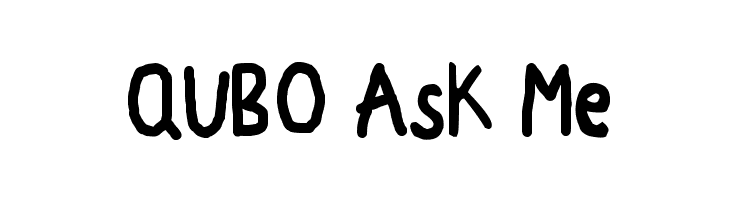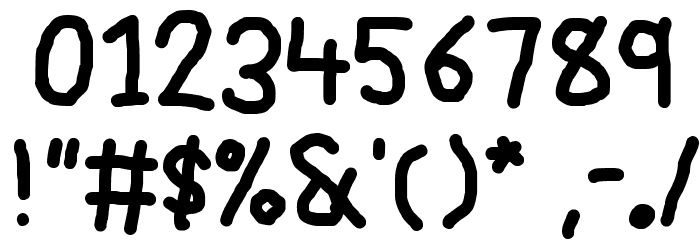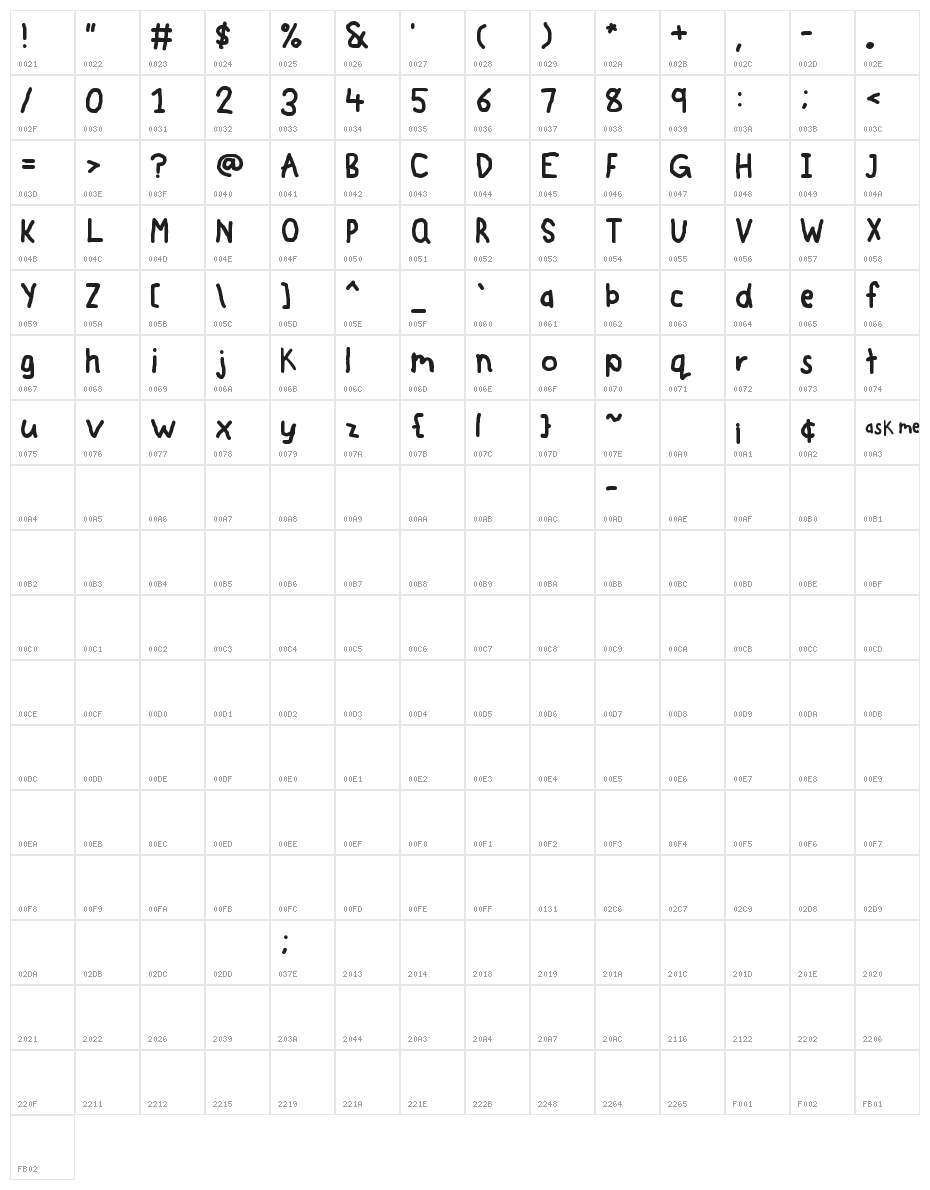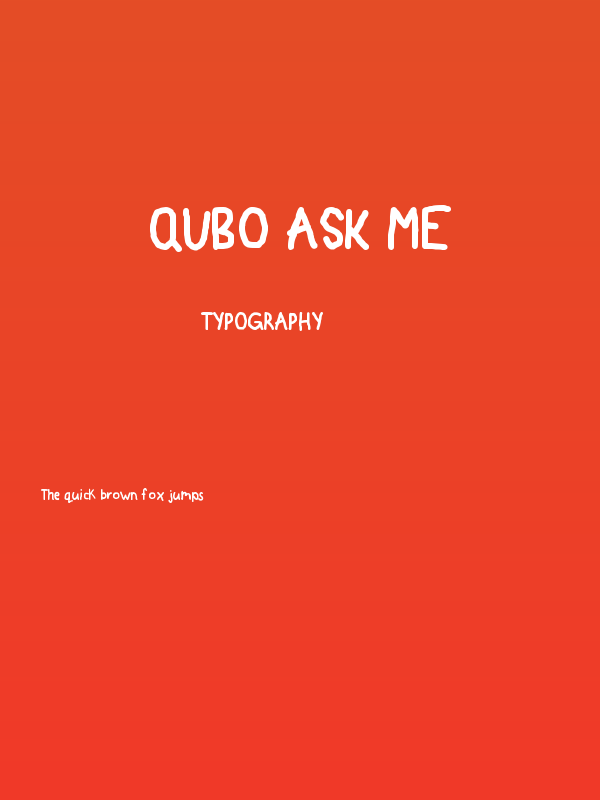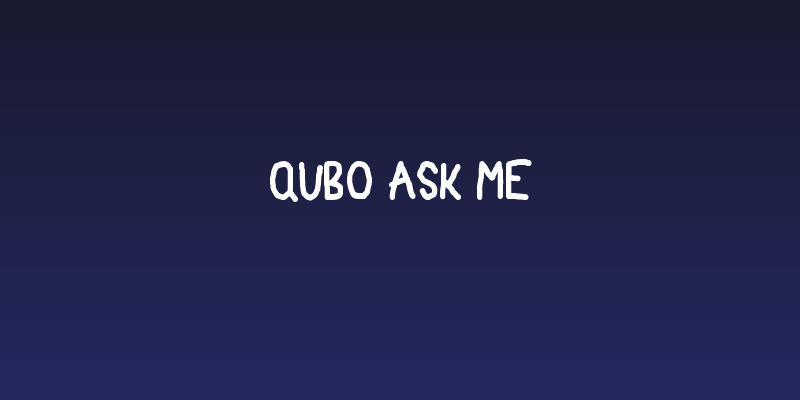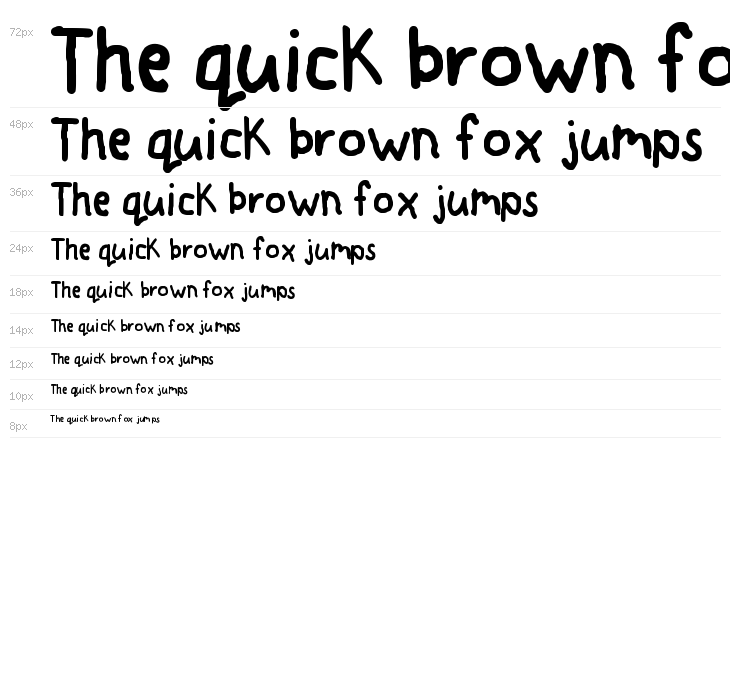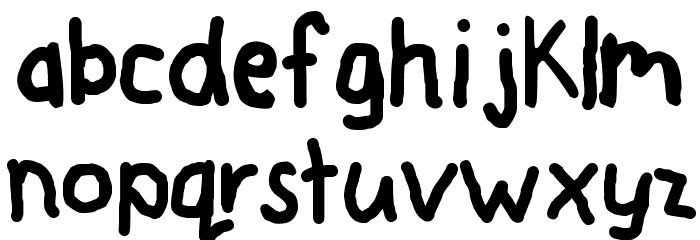
QUBO Ask Me Font
QUBO Ask Me Description
This font exhibits a playful and informal handwritten style, characterized by its bold and slightly irregular strokes. The letters have a casual, organic feel, with rounded edges and a consistent thickness throughout. The uppercase and lowercase letters maintain a cohesive look, while the numerals and special characters complement the overall design. This font's unique charm lies in its hand-drawn appearance, making it ideal for projects that require a personal touch.
| Use Case | Headlines, Informal text, Creative projects |
| Proposed Projects | Great for children's books, greeting cards, casual posters, and creative branding projects. |